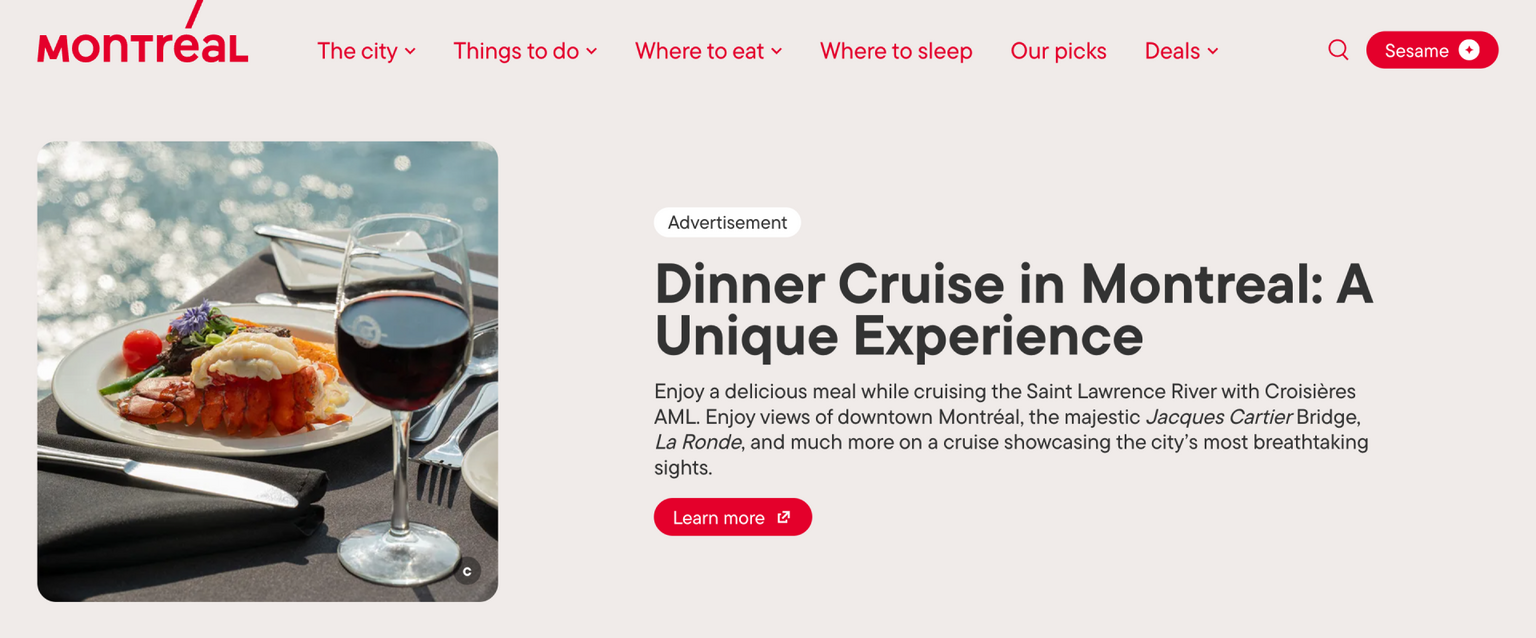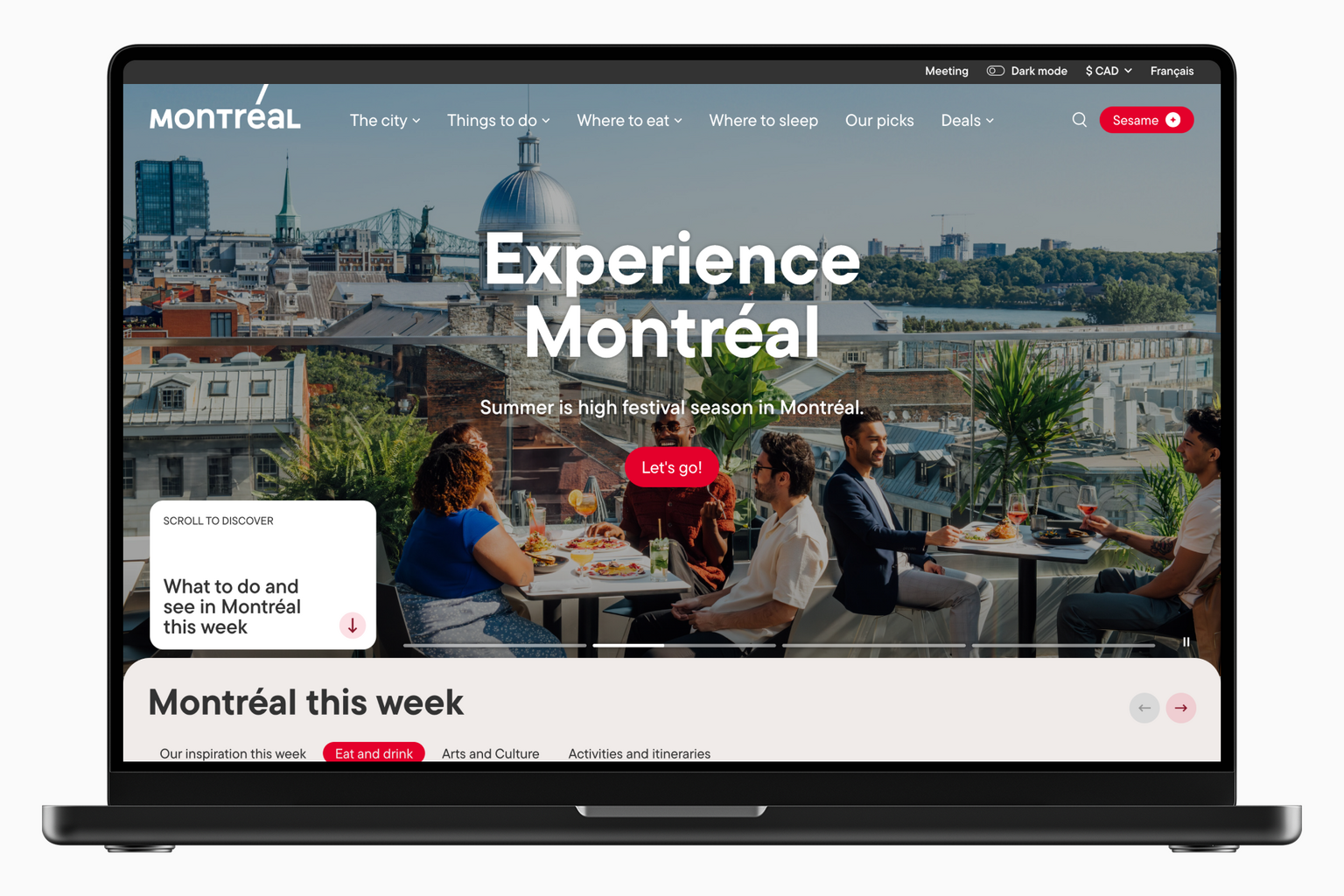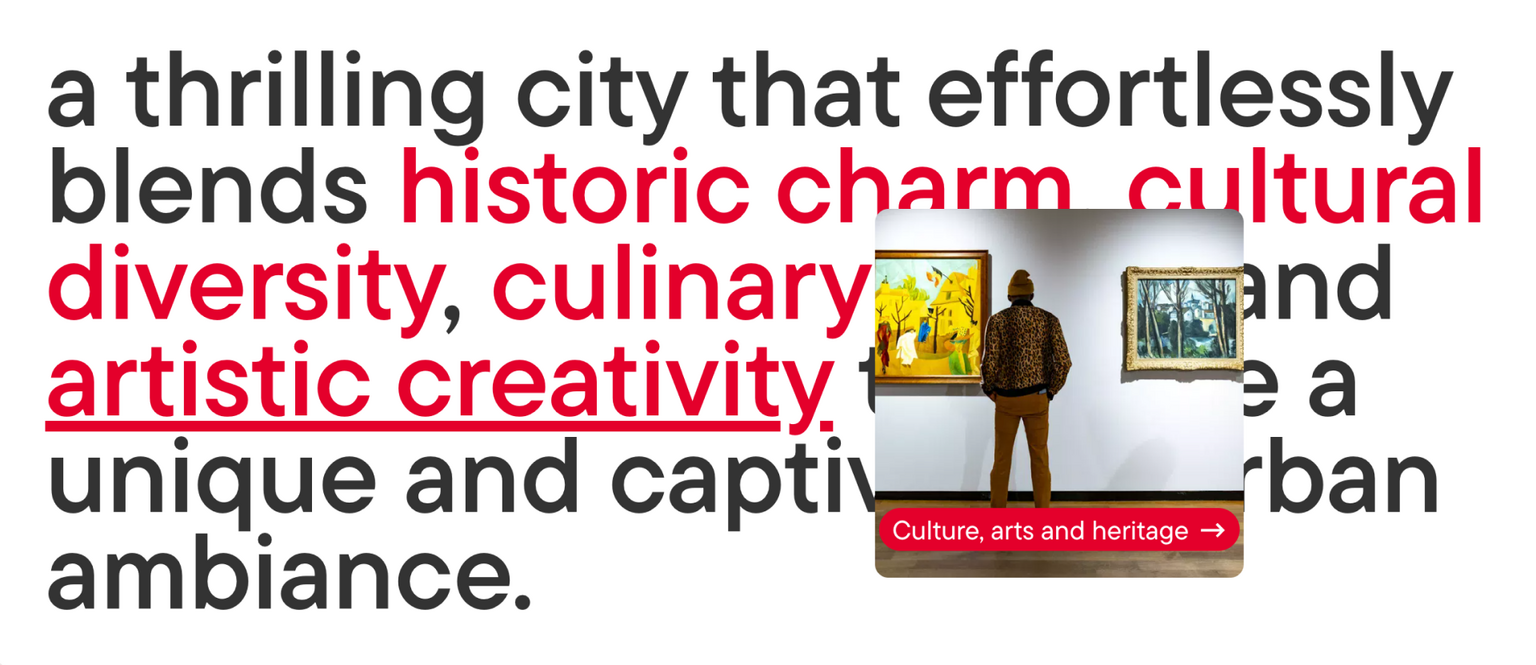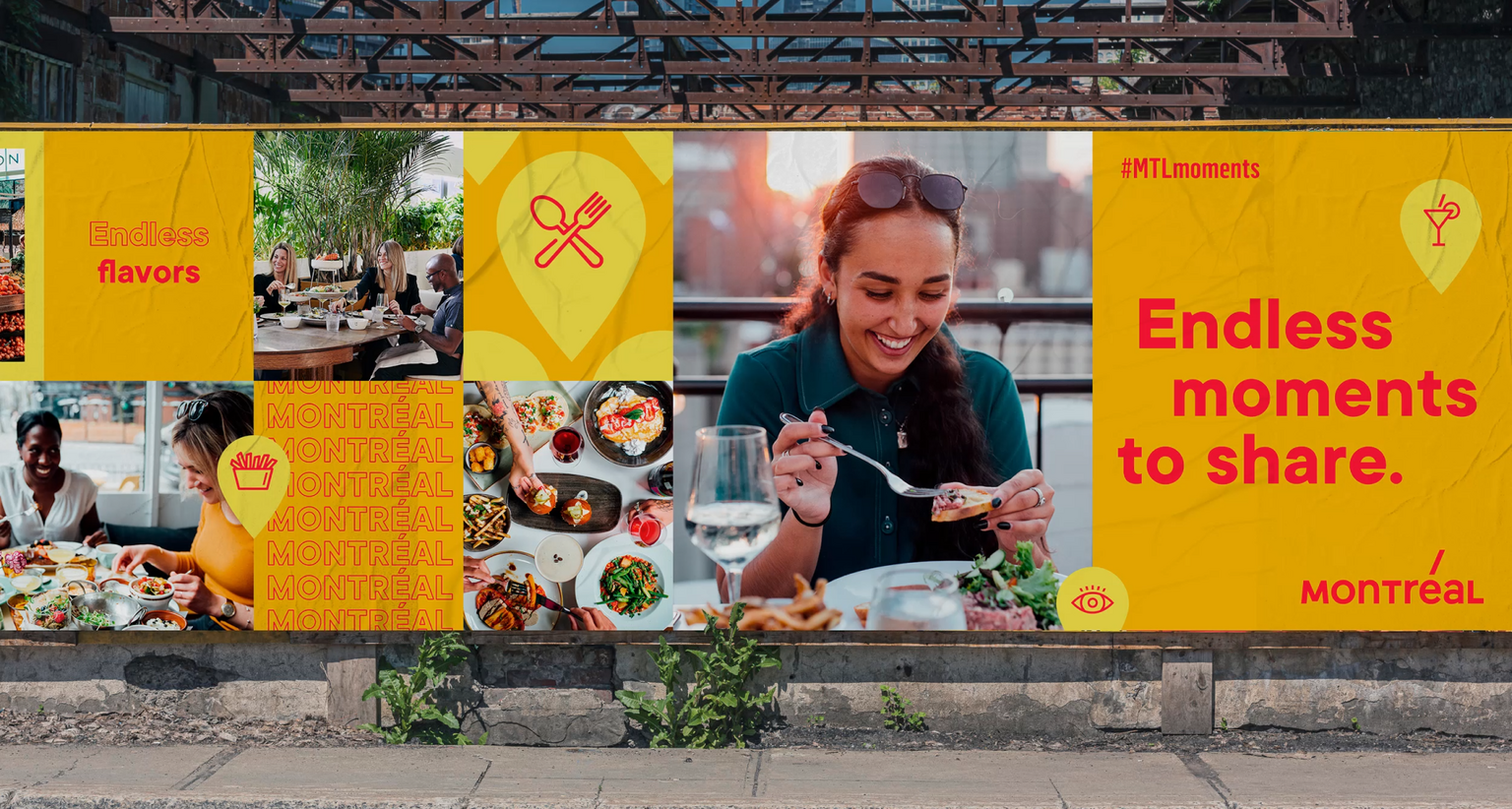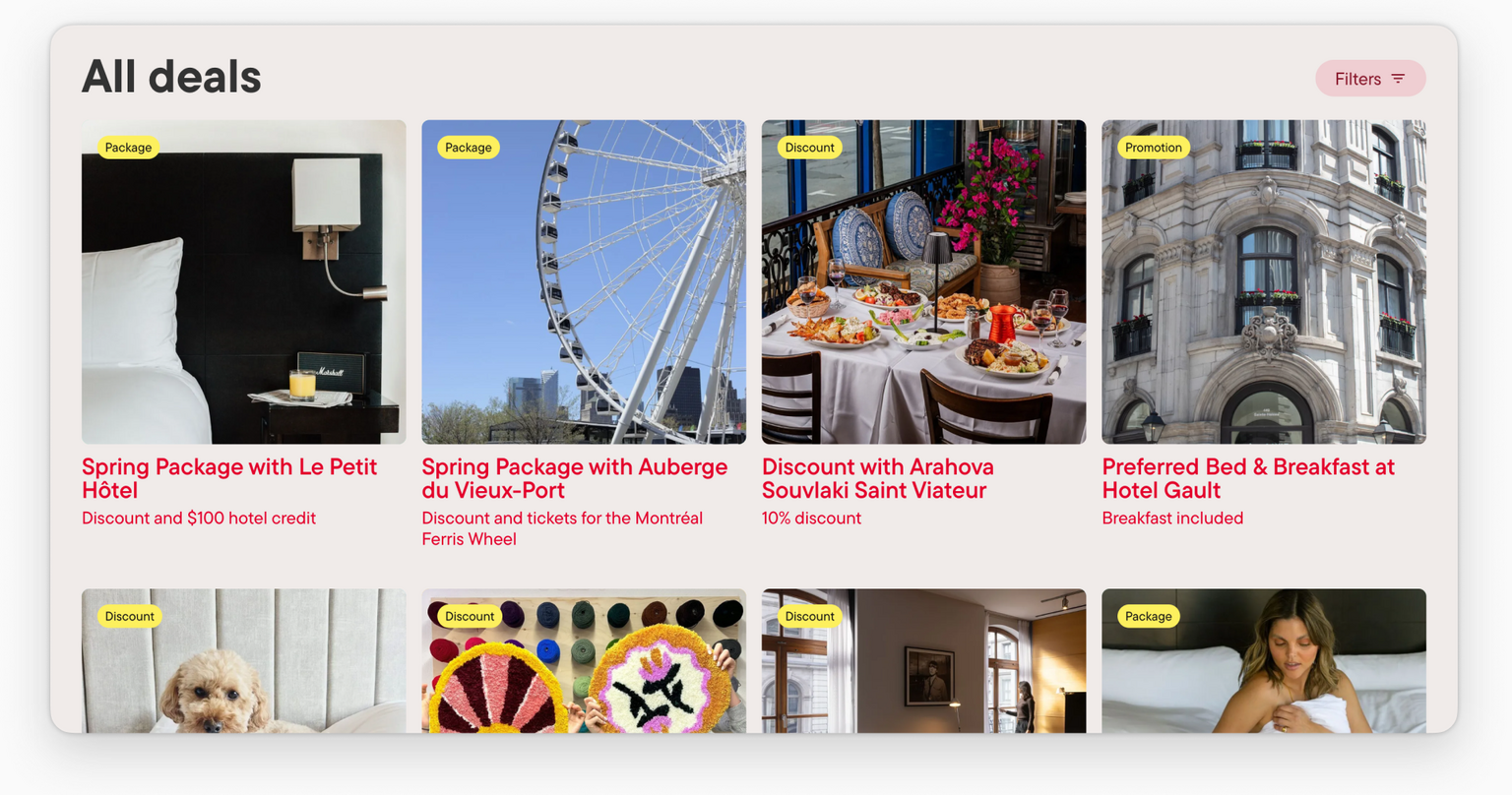
TT Commons™ Pro is used in the brand identity of Tourisme Montréal—a private, non-profit organization that promotes Montreal as a travel destination.
Tourisme Montréal develops tourism in the city and supports the hosting of business events, such as conferences and congresses, enhancing the economic and cultural impact on the region. Our font maintains a consistent style for the company across different formats and languages, ensuring the brand looks equally confident across all mediums.